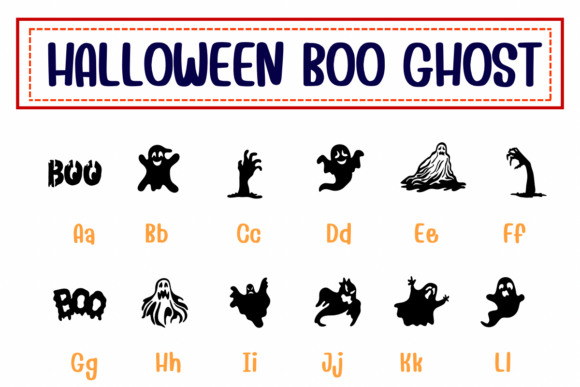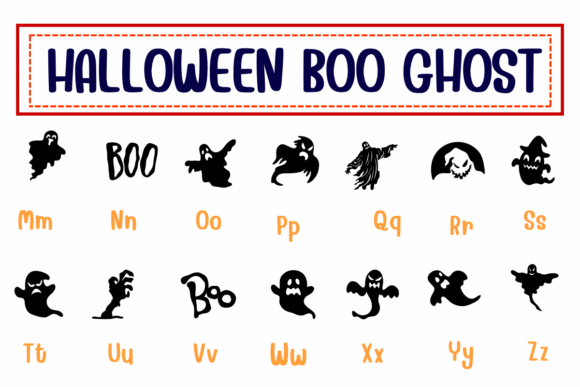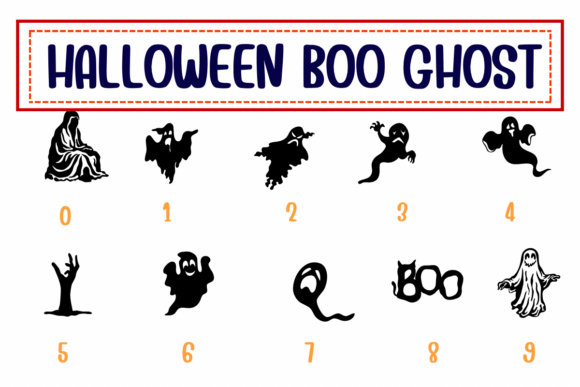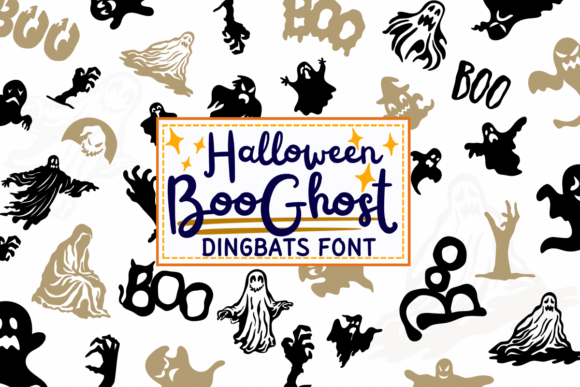
Introduction to Halloween Boo Ghost Font
Halloween Boo Ghost is a fun dingbats font.
Add it to your autumn projects and enjoy the results .
Why Choose Halloween Boo Ghost Font?